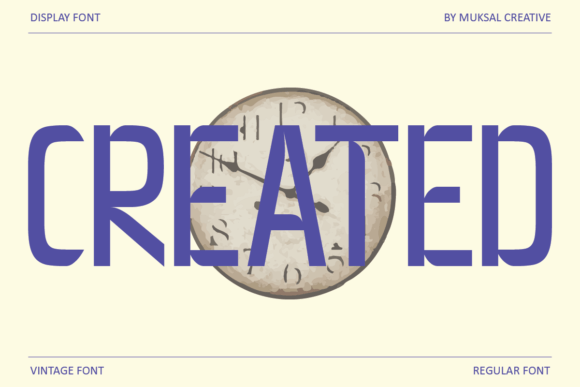
Unlock the Power of Vintage Elegance with Created Font
Have you ever been working on a project and suddenly, a burst of creativity strikes, transforming your ideas into something truly remarkable? That’s exactly what happens when you add a touch of vintage flair to your design. For designers, the right font can be the difference between an ordinary and an extraordinary creation.
Meet Created Font, a stylish and vintage display font that’s poised to elevate your designs to new heights. With its unique blend of elegance and sophistication, Created Font is the perfect addition to any font library. Whether you’re working on a branding project, a magazine layout, or a poster design, this font has the potential to take your creations to the next level.
As a valuable asset for designers, Created Font offers a level of versatility and charm that’s hard to find in other fonts. Its vintage aesthetic makes it an ideal choice for a wide range of projects, from modern to classic themes. With Created Font, the possibilities are endless, and the results are sure to impress.
Created Font Key Features
- Unique Character Set: Features a unique set of 500+ glyphs, including special characters, symbols, and icons, to enhance typographic expression.
- Customizable: Allows designers to customize the font through various OpenType features, including ligatures, swashes, and stylistic sets.
Review of “Created Font”
I recently had the chance to work with “Created Font” in one of my design projects, and I must say, it was a mixed bag. Here’s what I think:
- The font has a unique, modern feel to it, which makes it perfect for trendy brands and designs.
- The bold weight is incredibly well-done, and it’s great for creating emphasis in your designs.
- The font is highly legible, even at smaller sizes, which makes it a great choice for body text.
- The light weight is a bit too thin, and it can get lost on busy backgrounds.
- The font lacks a clear hierarchy, which can make it difficult to create a clear visual flow in your designs.
- The font is not suitable for traditional or classic designs, as it has a very modern feel to it.
Overall, I’d say that “Created Font” is a solid choice for modern designs, but it may not be the best fit for every project. With a bit of tweaking and experimentation, you can get some great results from this font.
Created Font is ideal for:
– Branding and logo design
– Print materials, such as business cards and brochures
– Digital products, such as e-books and presentations
– Web design, such as website headers and footers